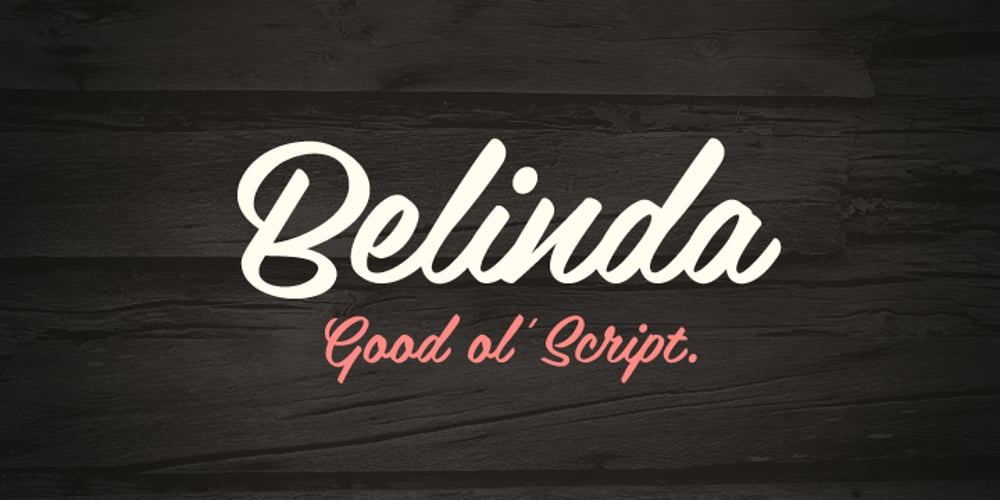
Belinda
Belinda font
Belinda Font Family was designed by published by Melvastype. Belinda contains 1 styles and family package options. Belinda is a vintage brush script.